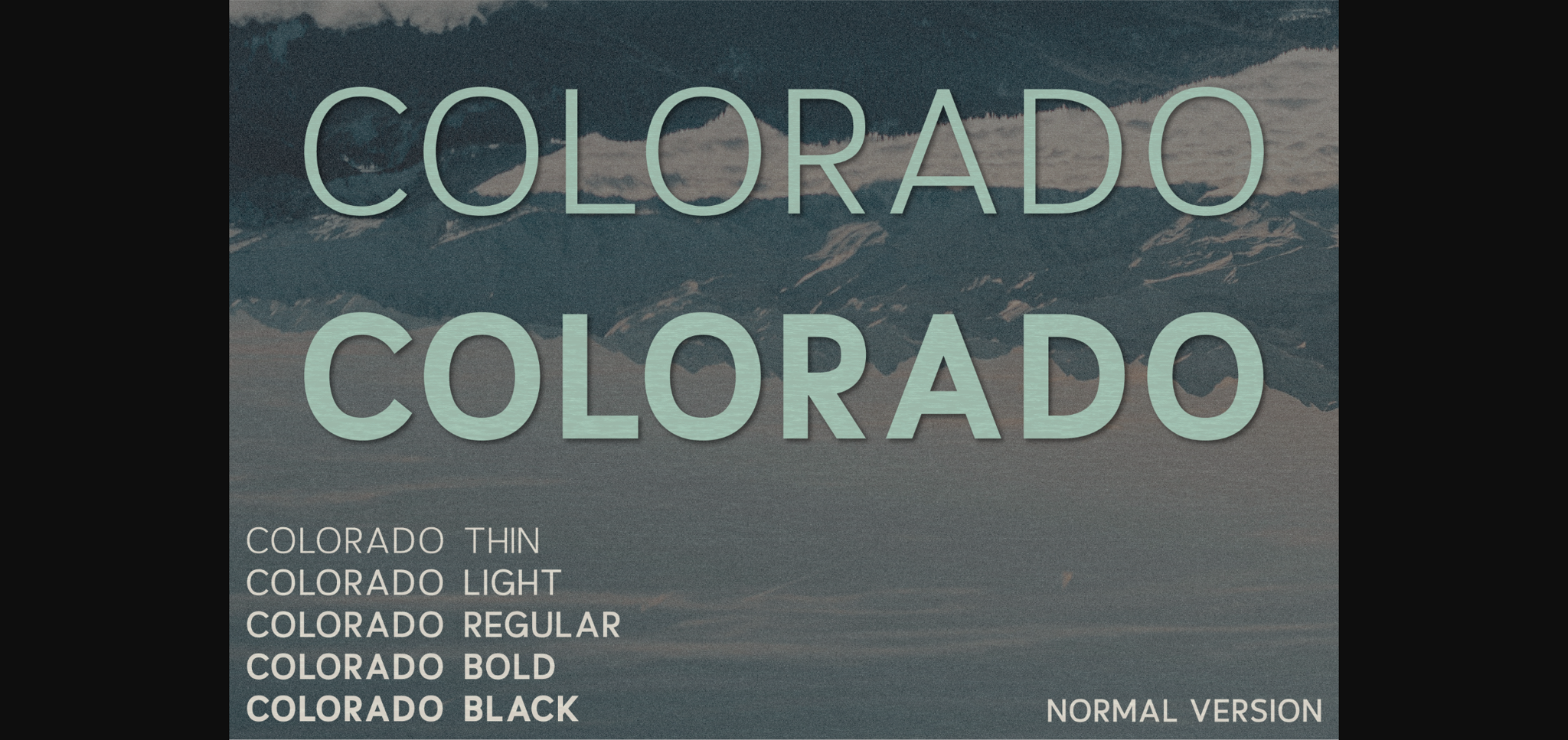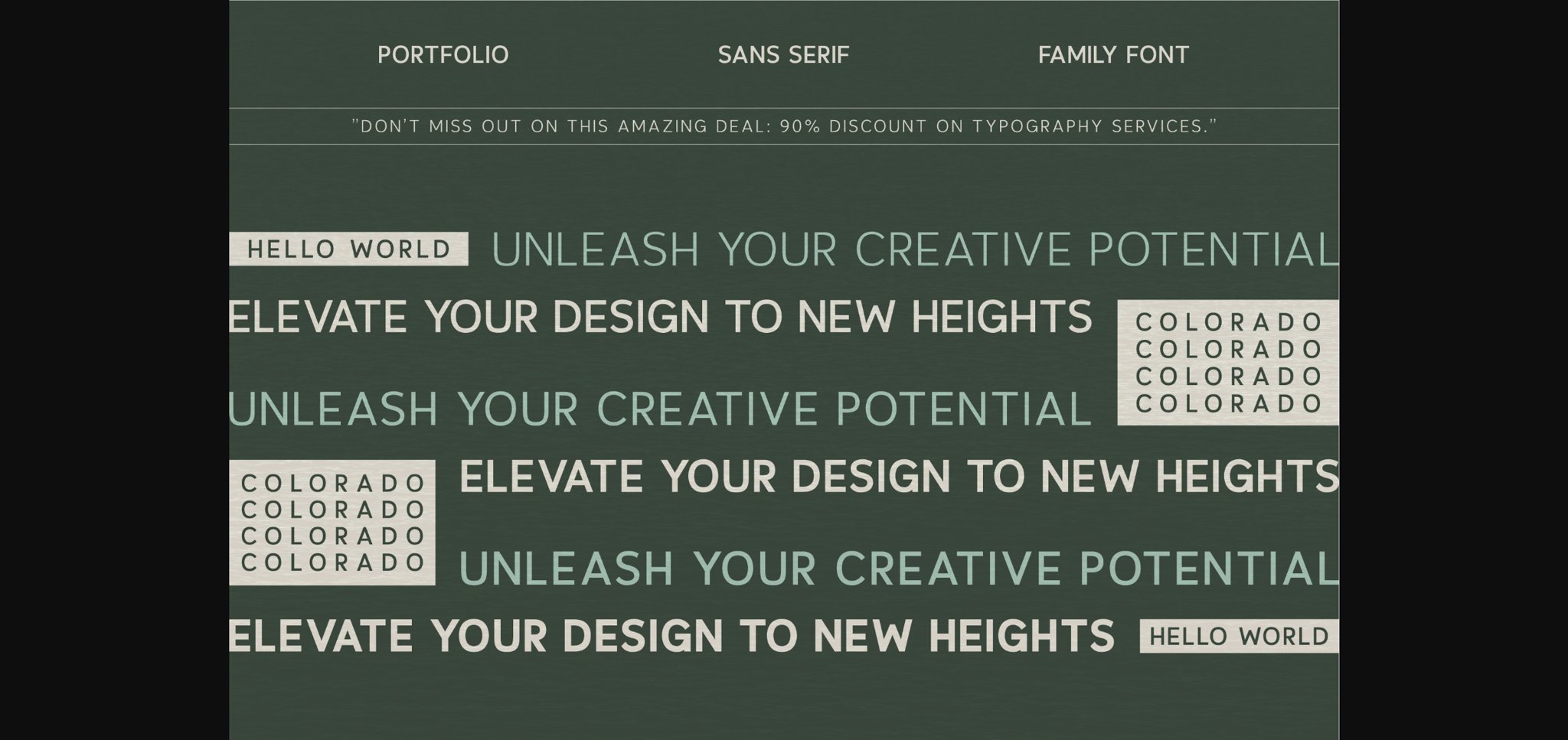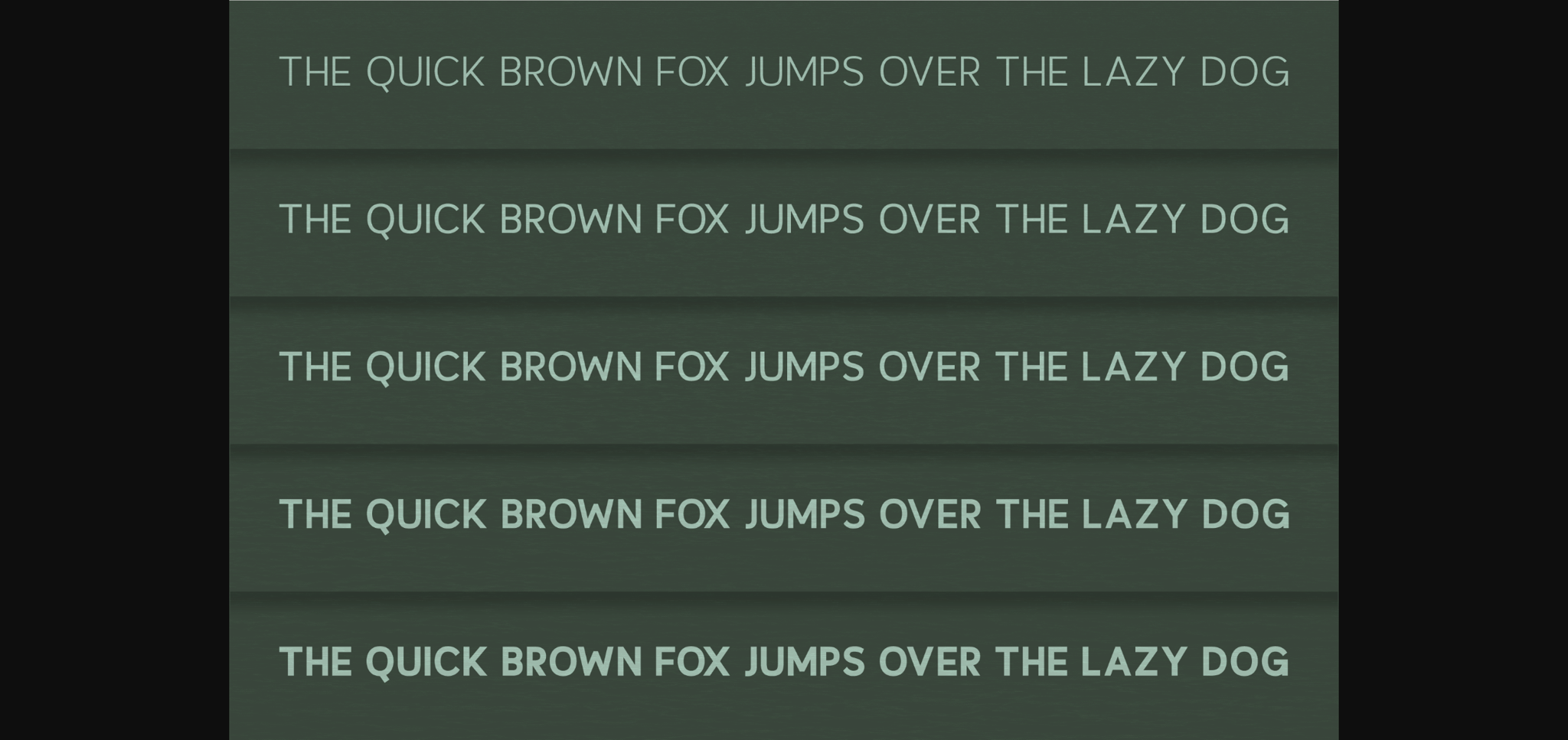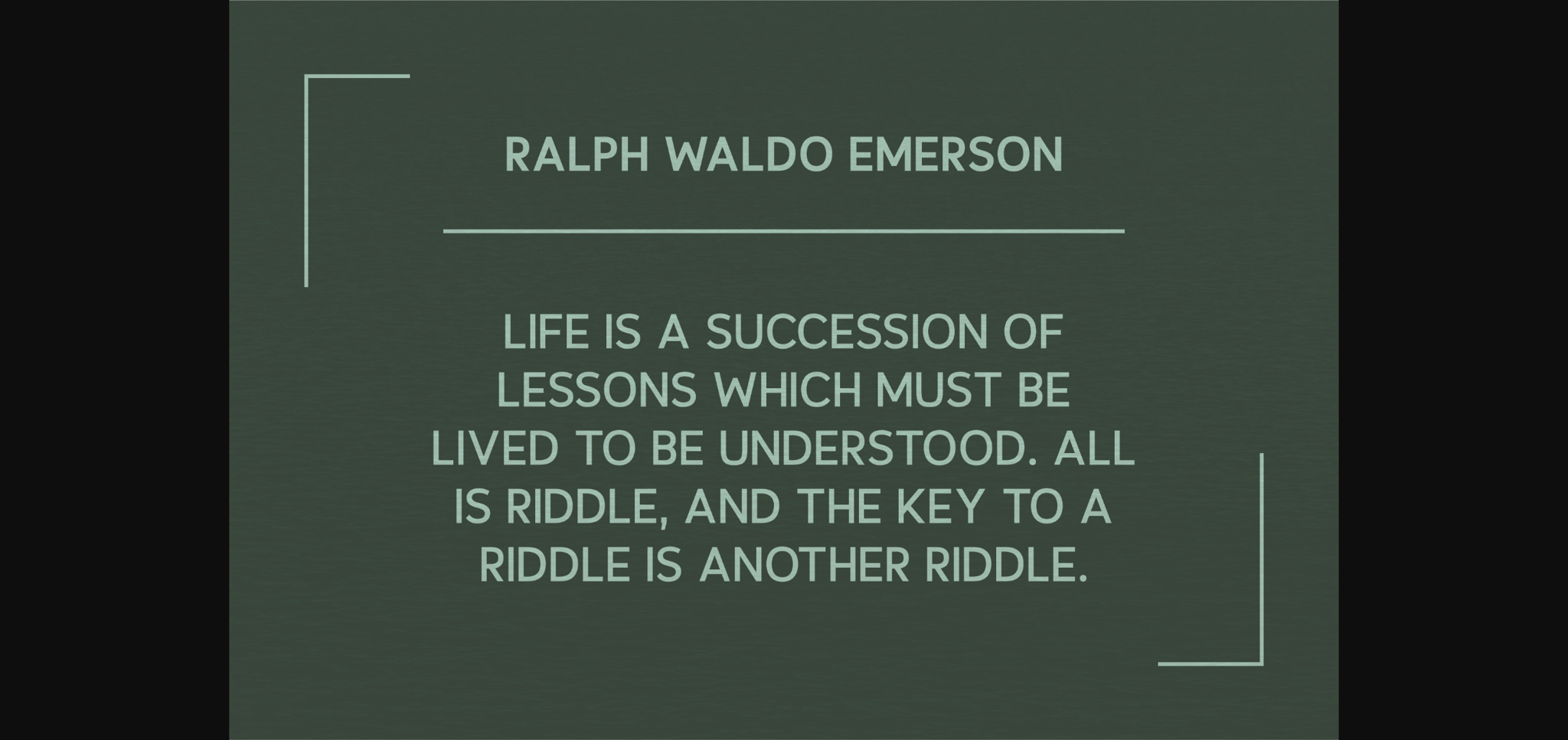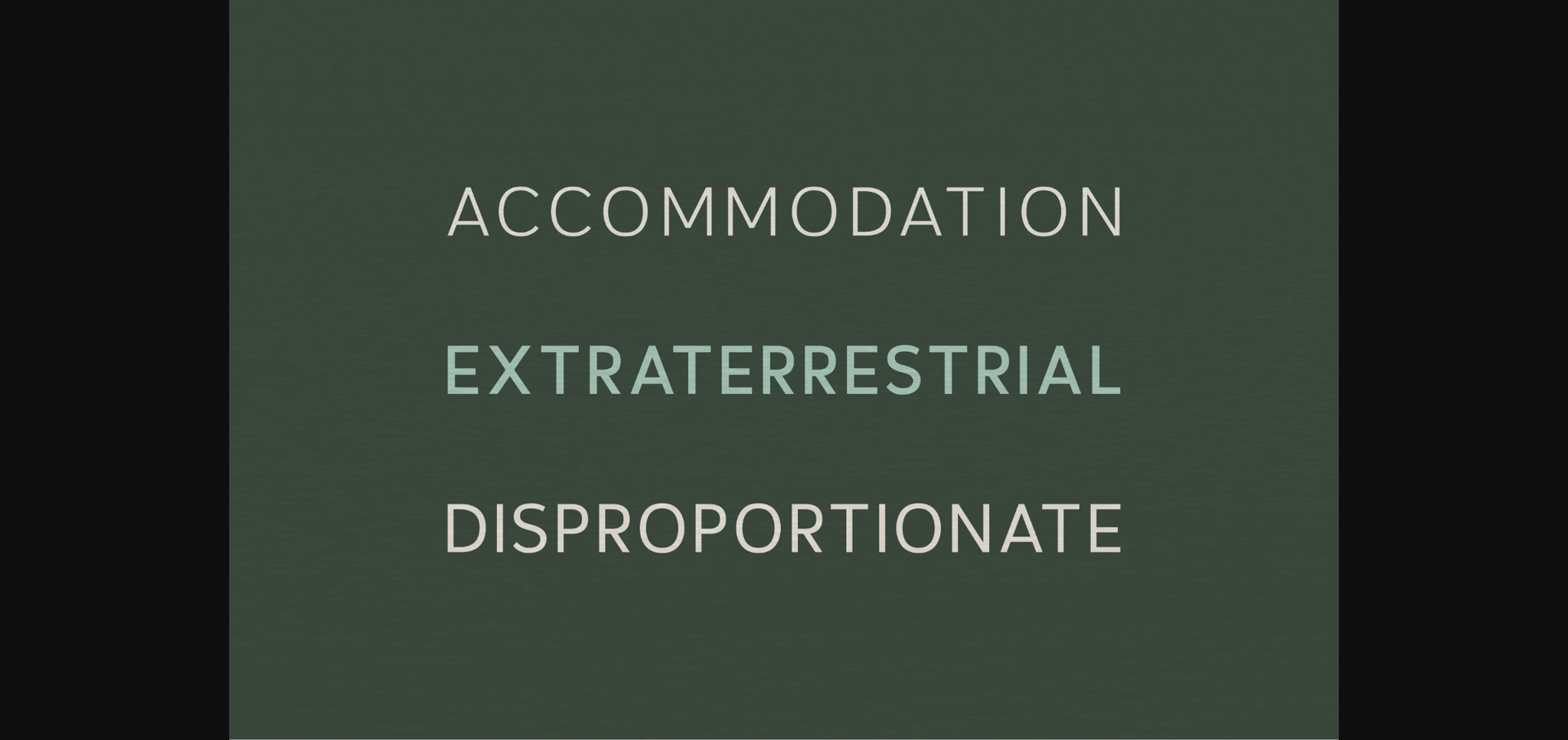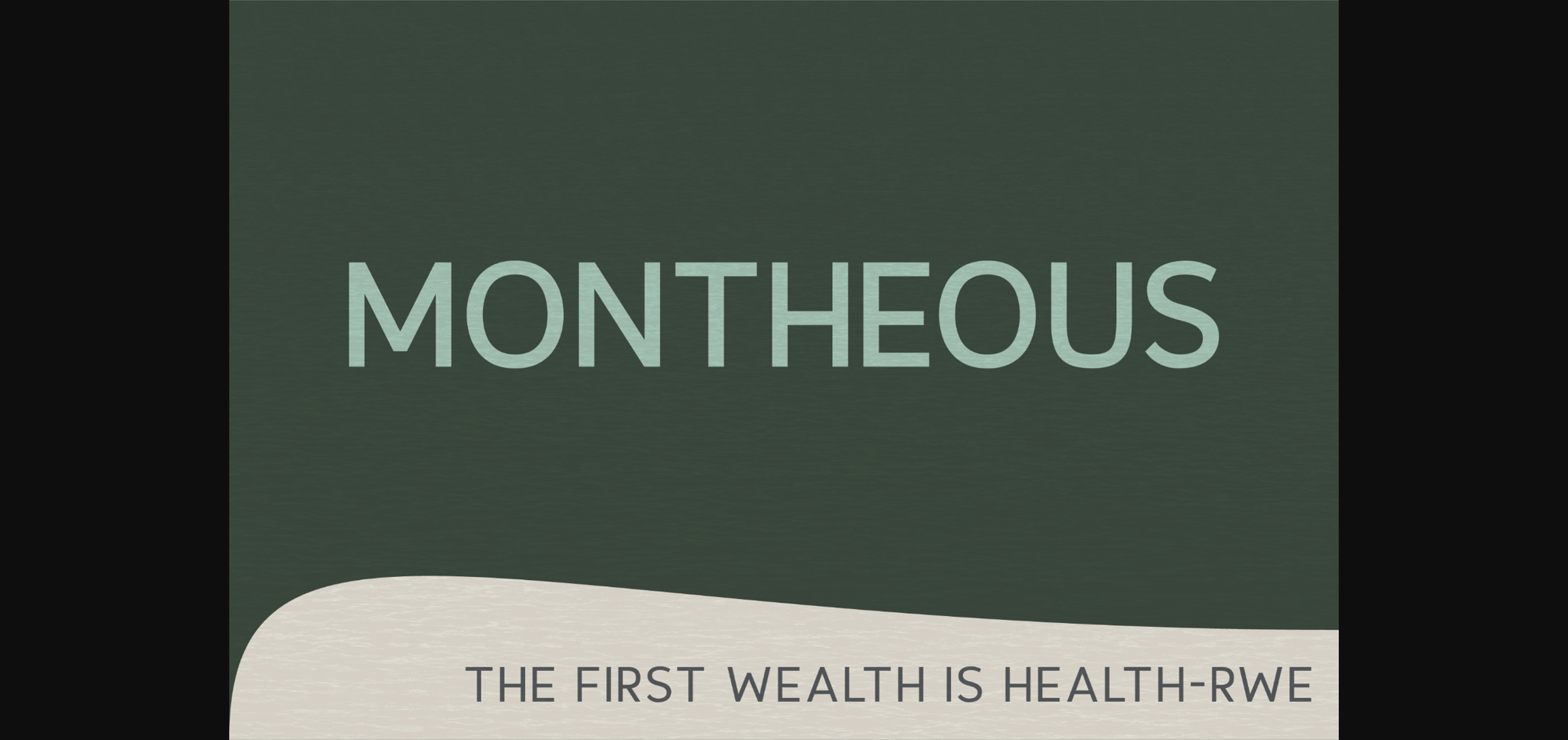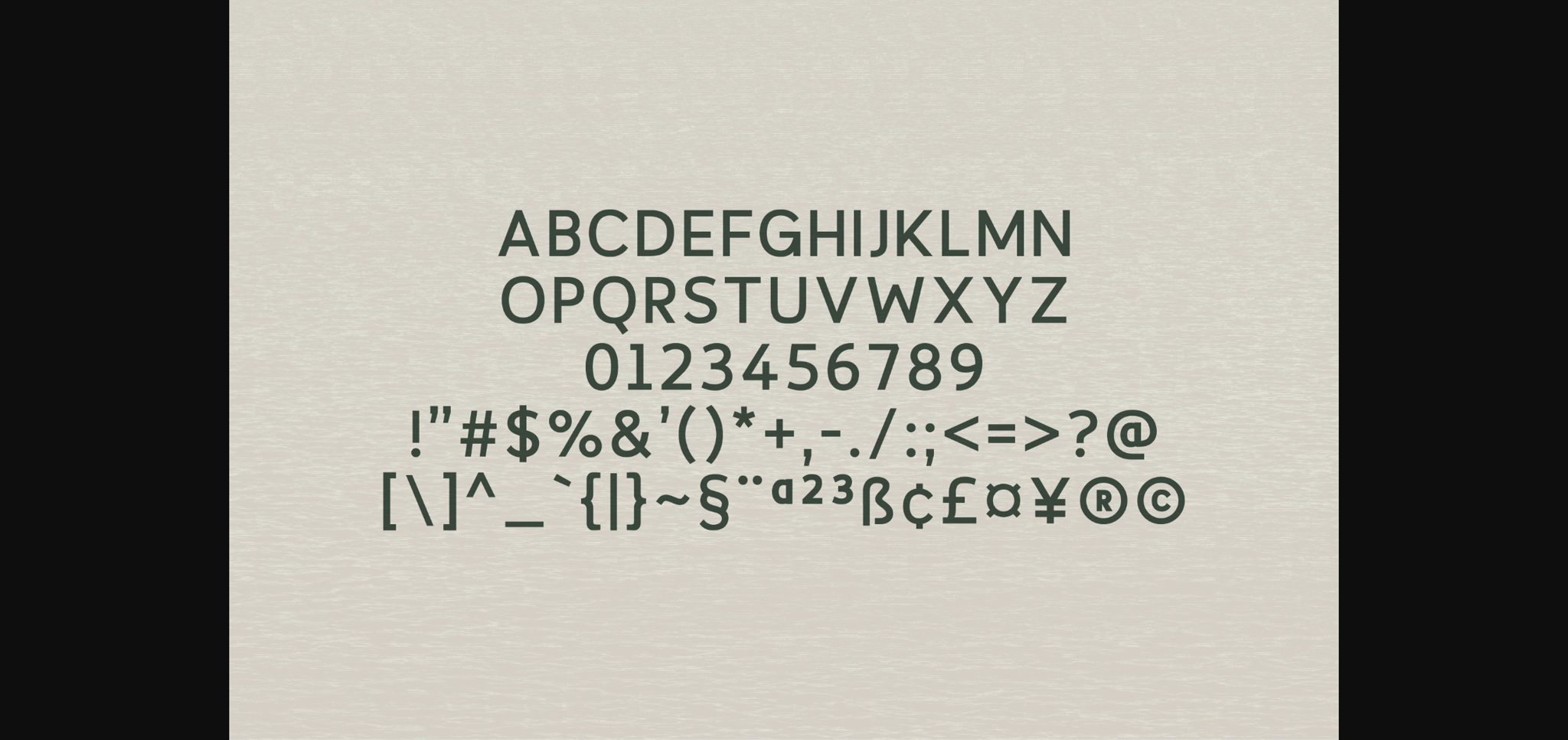
Colorado Font
About Colorado Font
Unearth the exquisiteness of the Colorado font family. A remarkable fusion of elegance and minimalism, the Colorado font family adorns your projects with a touch of luxury and modernity. Available in five distinct weights, this sans serif compilation offers effortless sophistication, meticulously crafted for precision. Be it your magazine, logo, or film poster, Colorado font serves as an enhancing element, adding a timeless charm to your designs. Delve into the harmonious blend of simplicity and grandeur with this Colorado font collection, designed to empower your creative vision.